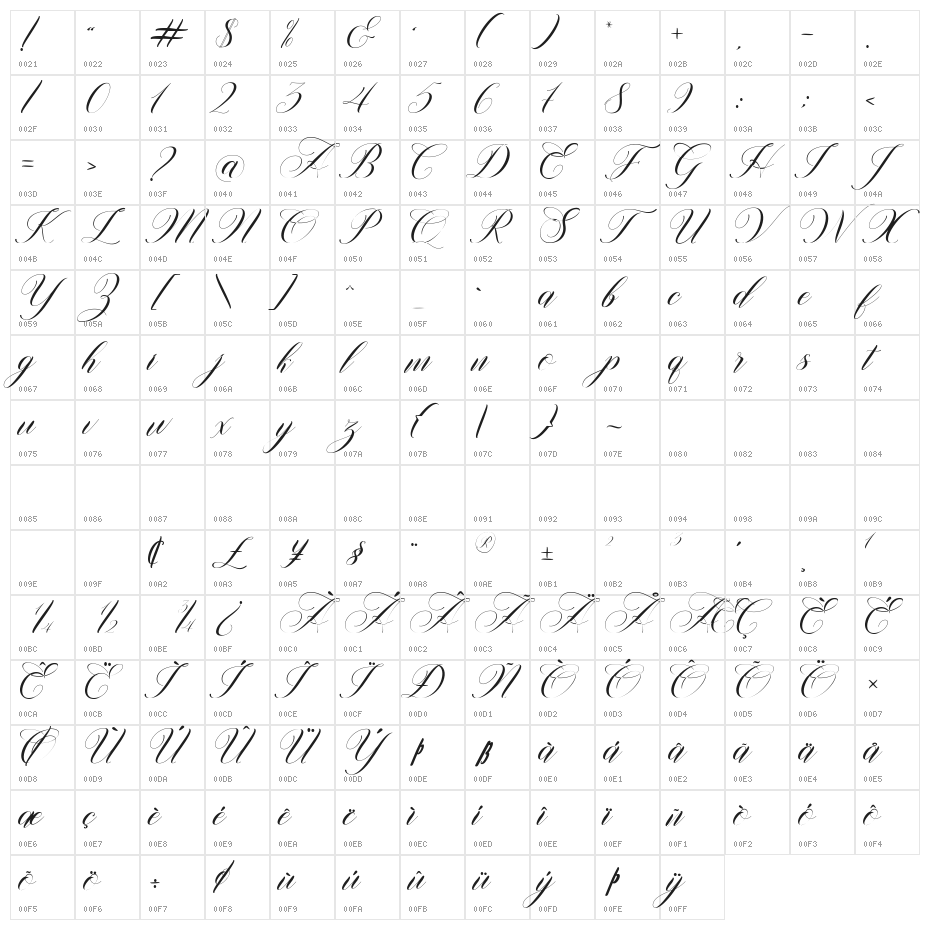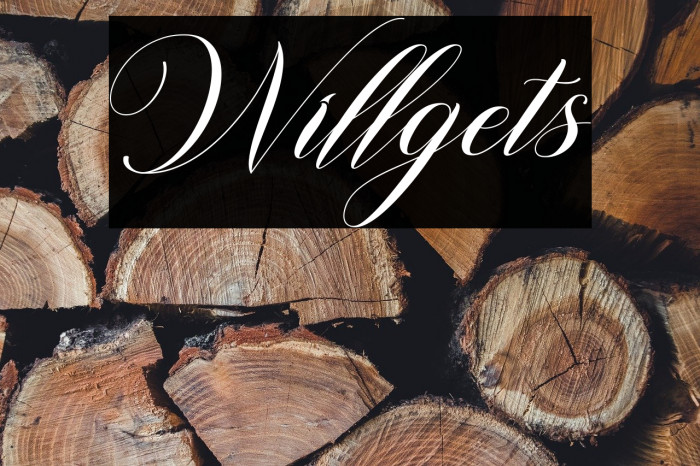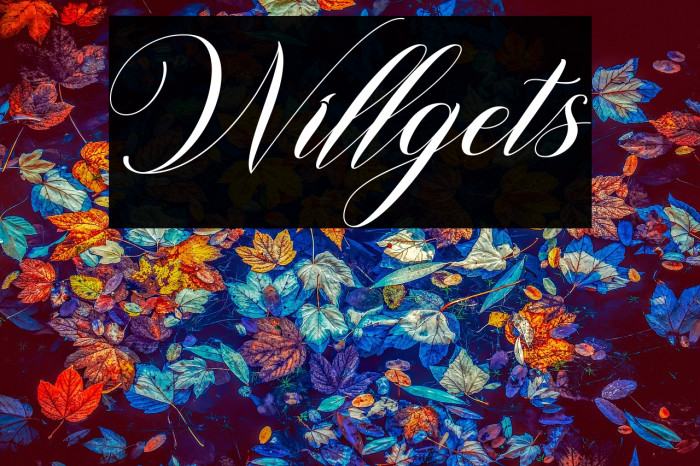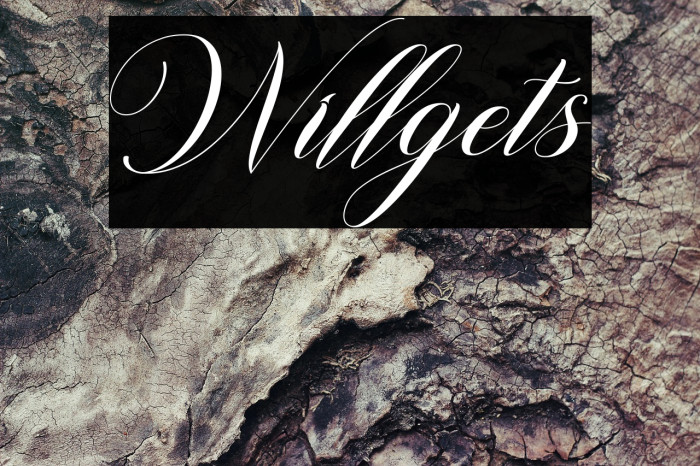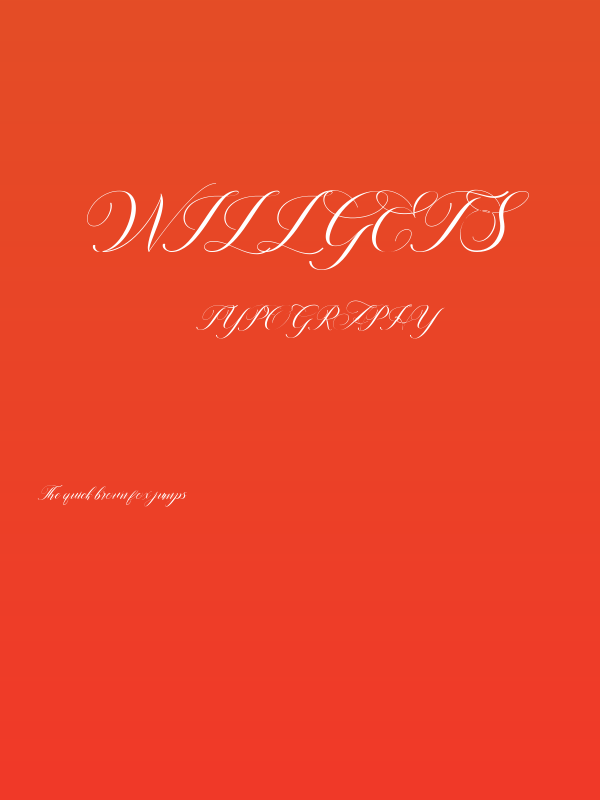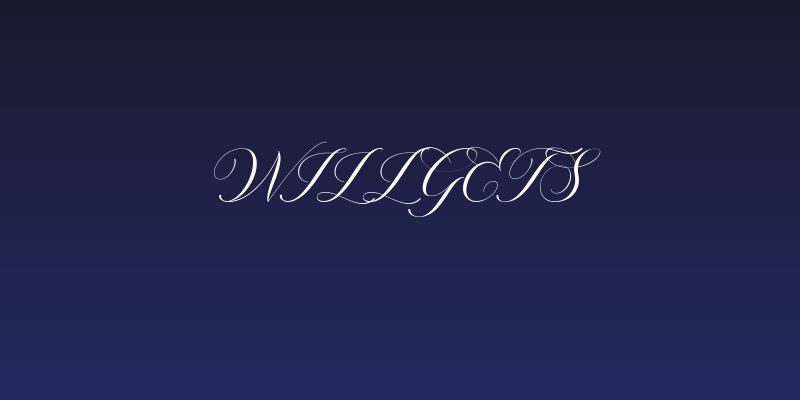
Willgets Font
Willgets Description
This elegant script font features flowing, cursive letters with a refined and sophisticated appearance. The uppercase letters exhibit graceful loops and swashes, while the lowercase letters maintain a smooth, connected style. The numerals are designed with a similar fluidity, ensuring consistency throughout the typeface. The special characters complement the overall aesthetic, adding a touch of flair. This font is ideal for projects that require a touch of elegance and sophistication, such as wedding invitations, formal event programs, or luxury branding. Its high contrast in stroke thickness enhances readability while maintaining its decorative appeal.
| Overall Style | Elegant, Sophisticated |
| Use Case | Headlines, Invitations, Branding |
| Proposed Projects | Wedding invitations, luxury branding, formal event programs, elegant stationery. |